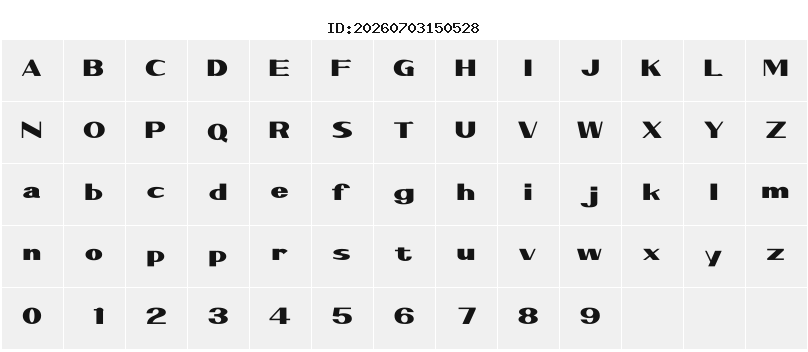
• Font Name: 236-上首东坡体
• Font ID: 236-SSDongPoTi:Version 4.00
• Full Font Name: 236-上首东坡体
• Version: Version 4.00 December 23, 2023
• PostScript Name: 236-SSDongPoTi
• Character Count: 7567
• Manufacturer: 上首造字
About 236-上首东坡体.ttf
236-上首东坡体.ttf is a modern, elegant sans-serif font designed for ultimate readability and visual harmony. Perfect for branding, headlines, web design, and print materials.